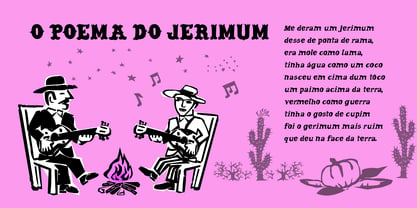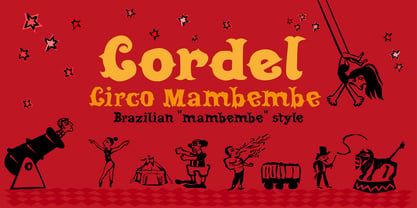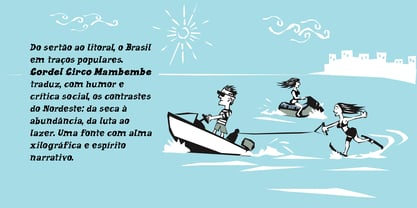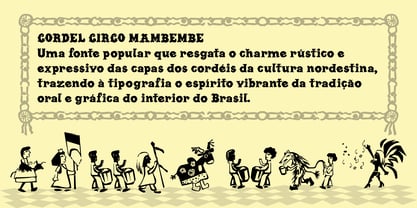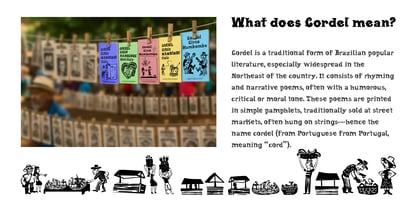
Cordel Circo Mambembe
CORDEL CIRCO MAMBEMBE
A popular font that rescues the rustic and expressive charm of the covers of the cordéis of northeastern culture, bringing to typography the vibrant spirit of the oral and graphic tradition of the interior of Brazil.